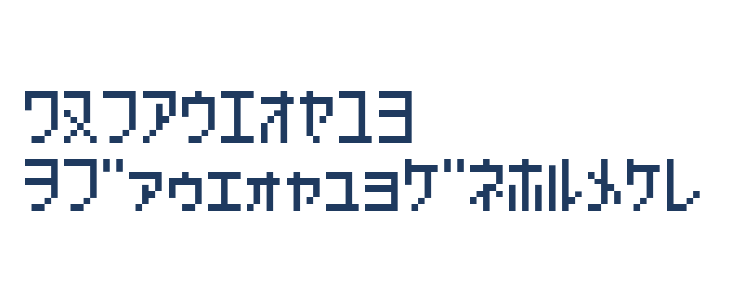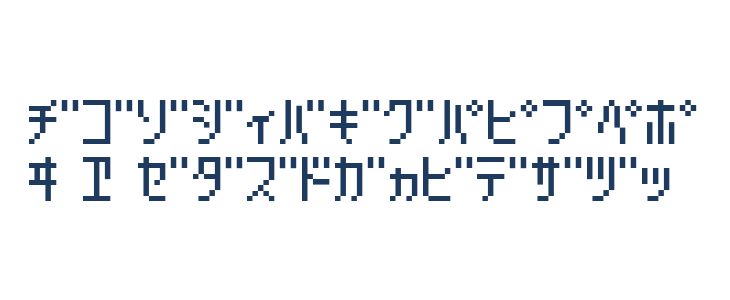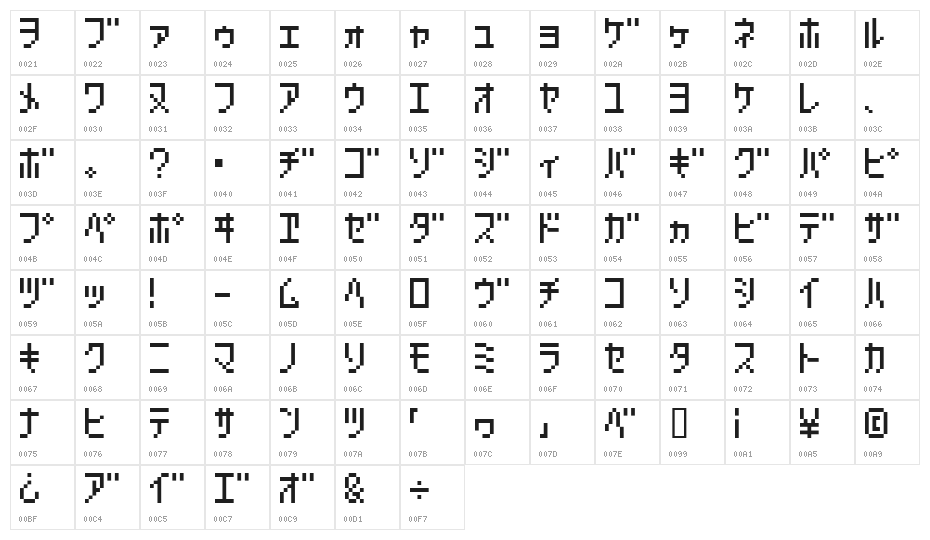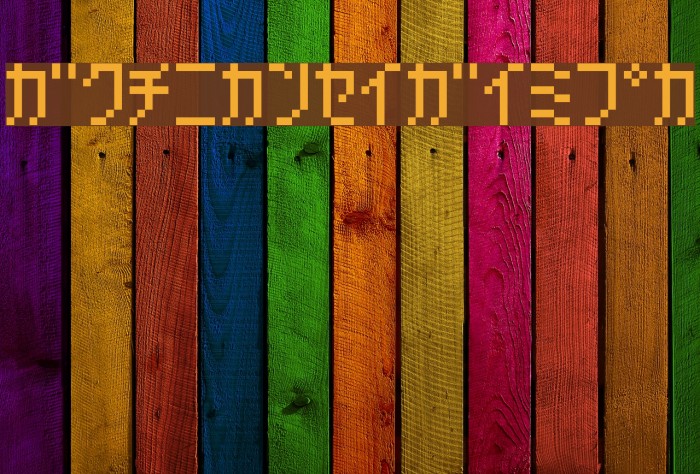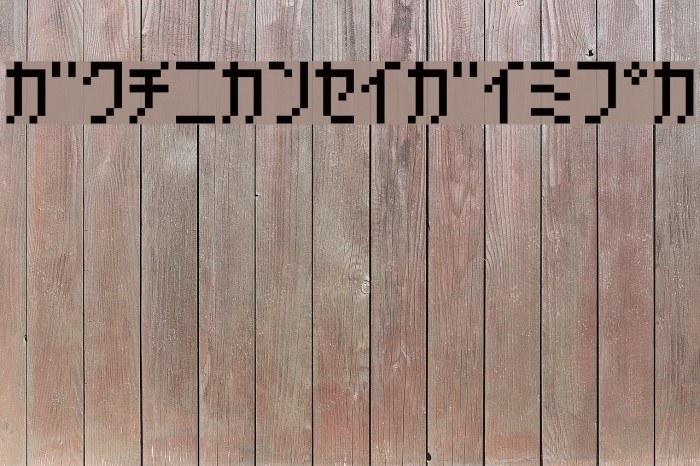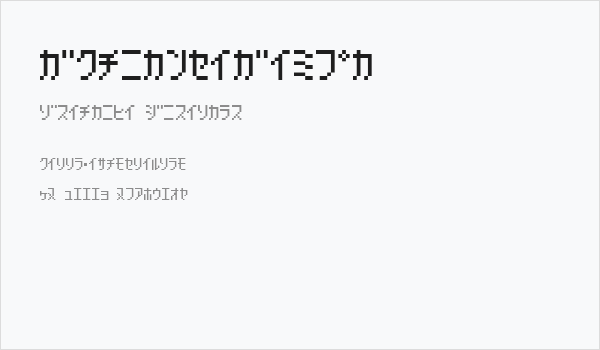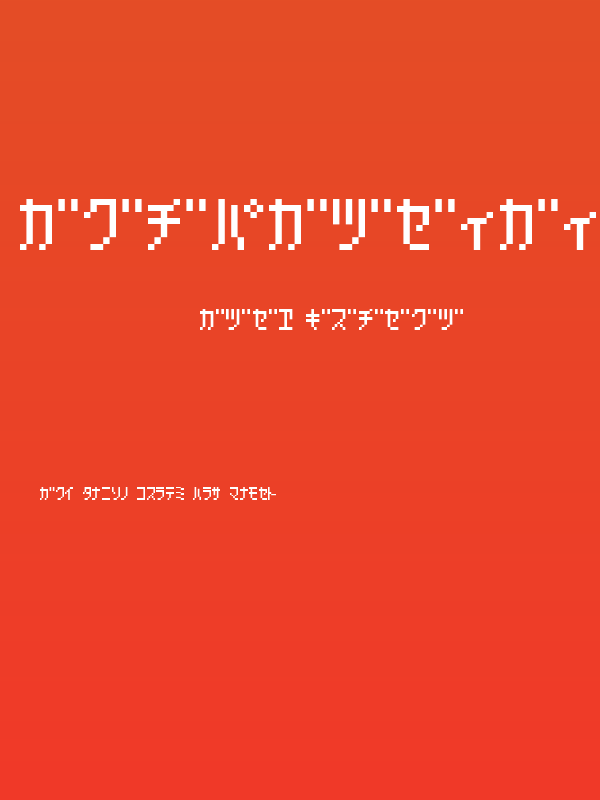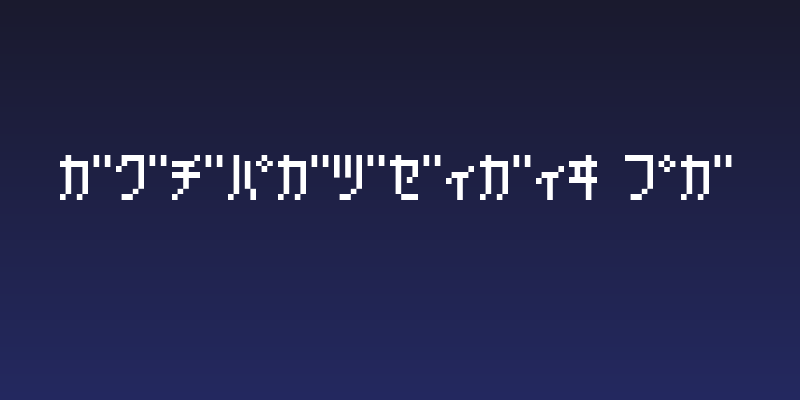
ThaitypeTenKt Font
ThaitypeTenKt Description
This font features a pixelated, blocky design reminiscent of early digital or video game typography. The characters are uniformly structured with a consistent grid-like appearance, giving it a retro and nostalgic feel. Each letter and symbol is crafted with sharp, angular edges, emphasizing a minimalist and straightforward aesthetic. The uniformity in height and width across characters ensures a cohesive and balanced look, making it ideal for digital displays or themed projects that require a vintage digital touch. The font's simplicity and clarity make it highly legible, even at smaller sizes, while its unique style adds a distinctive character to any design.
| Overall Style | Vintage |
| Use Case | Headlines, Logos, Digital displays |
| Proposed Projects | Ideal for video game design, digital art projects, retro-themed websites, and nostalgic branding. |